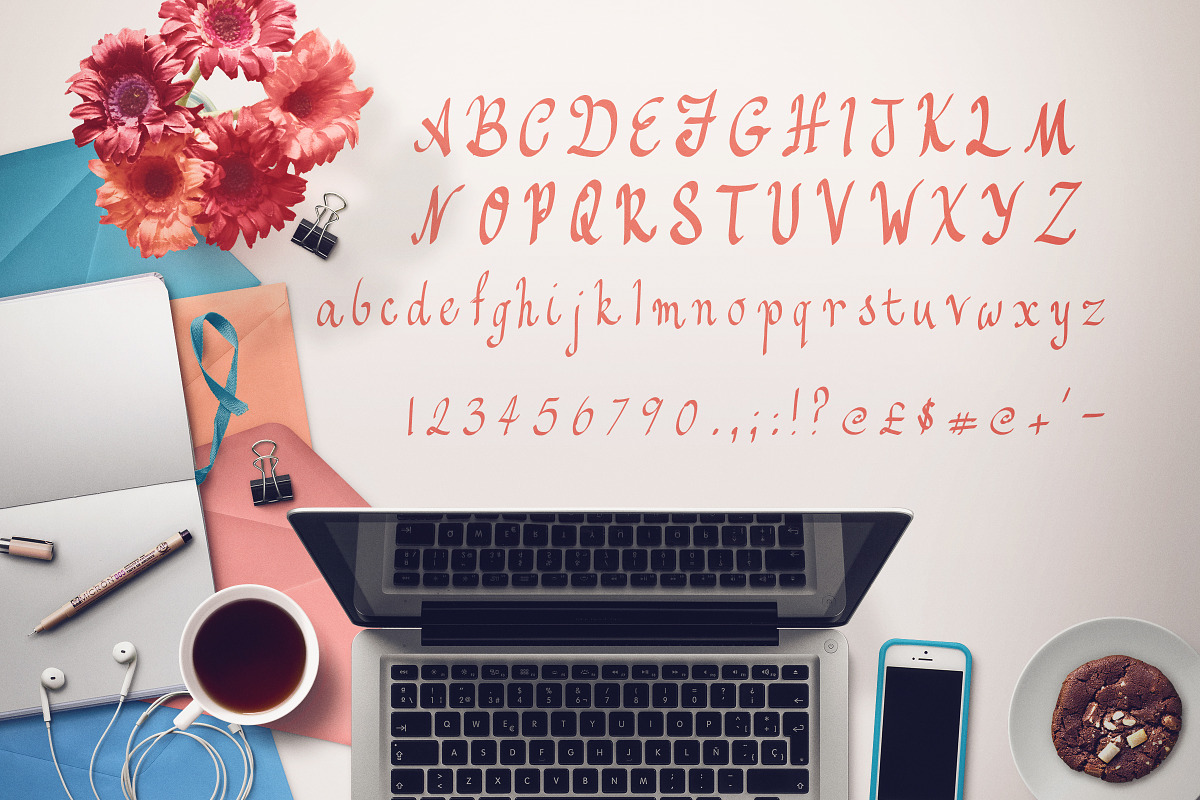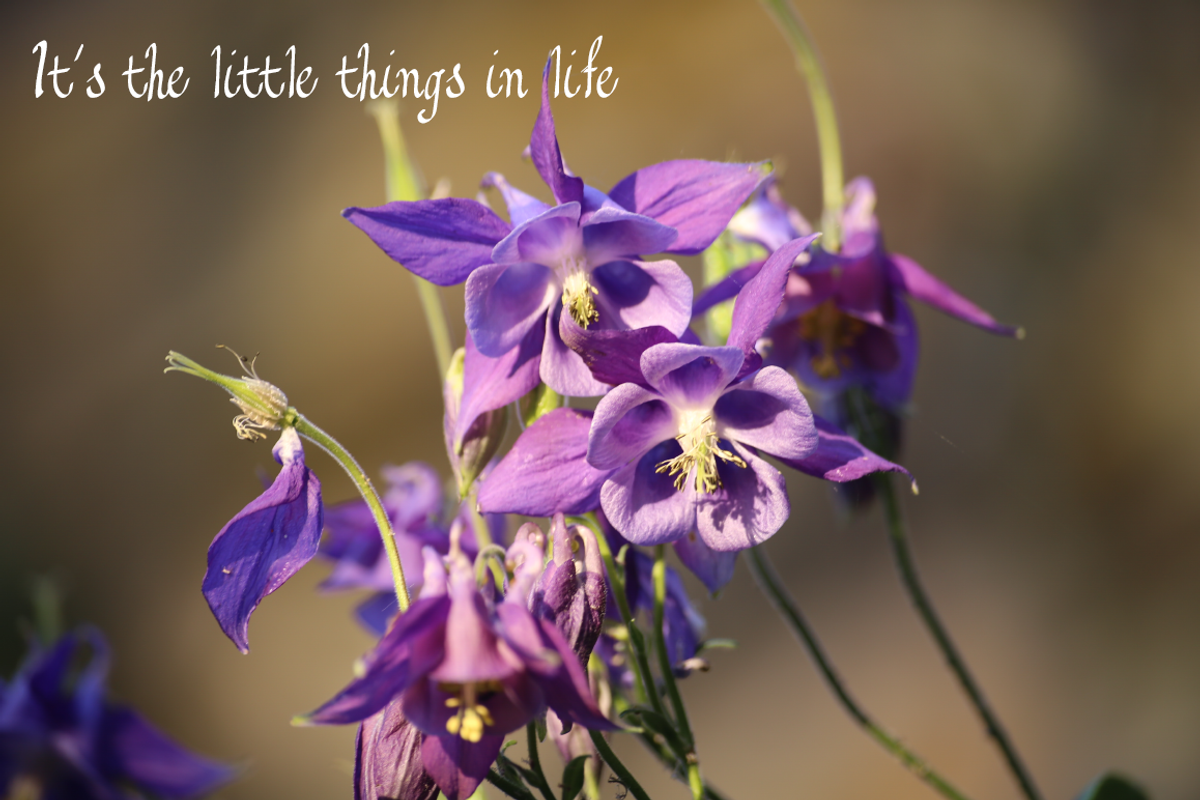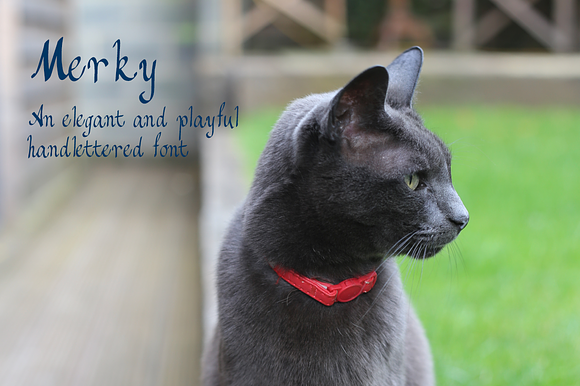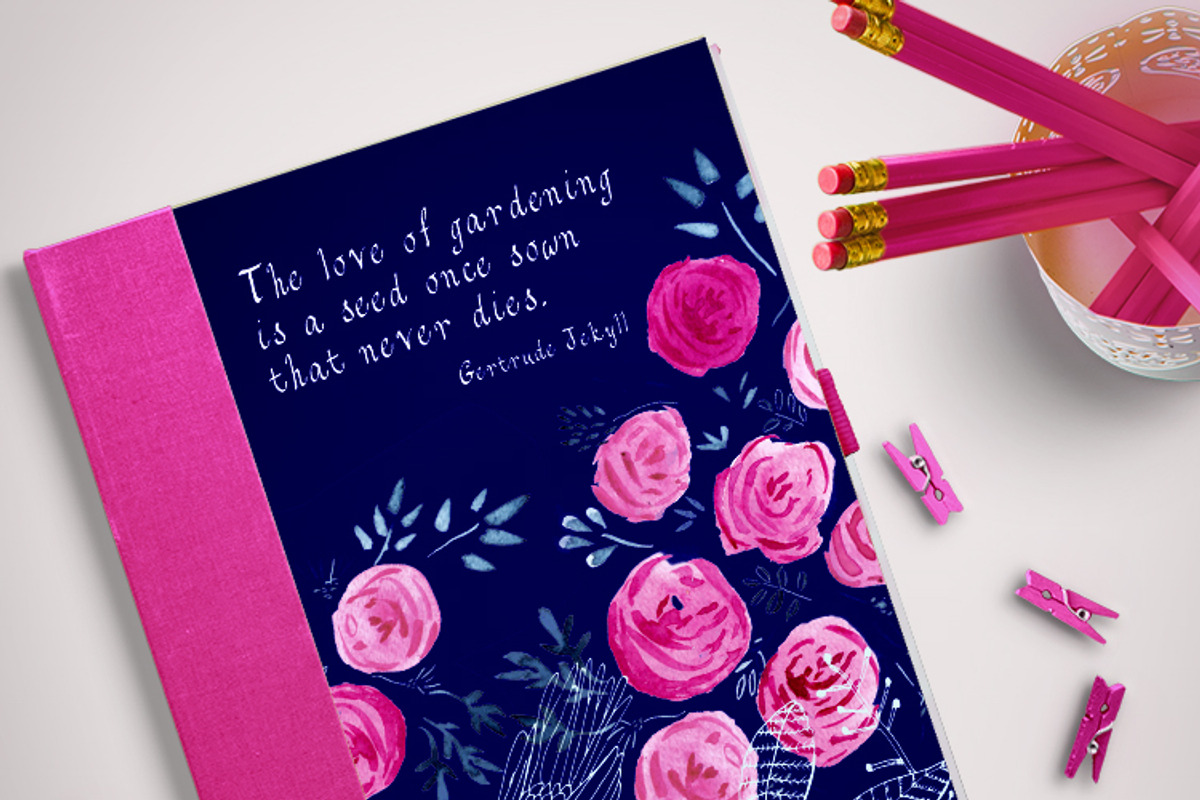
Merky - an elegant and playful font
Merky is an elegant and playful font inspired by my cat - Merky!
This font works well for blog headers, social graphics, and posters.